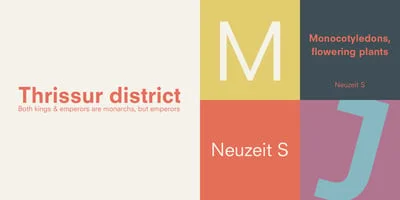
Neuzeit S LT Font
Neuzeit S LT Font delivers a modernist typeface that embodies Bauhaus principles and geometric precision with timeless functionality. However, for commercial use, you must purchase this font. You can download it for free for testing purposes only.
Neuzeit S LT Font excels in architectural design applications including modernist building signage, design museum materials, contemporary art gallery branding, minimalist corporate identities, industrial product packaging, architectural firm presentations, modern furniture catalogs, progressive educational institutions, clean technology interfaces, and sophisticated cultural communications. This geometric typeface brings German design philosophy to contemporary projects.
What makes Neuzeit S LT Font truly exciting is its authentic representation of 1920s modernist typography with pure geometric construction and functional clarity that remains relevant today. The font features precisely engineered letterforms with consistent proportions and mathematical harmony that reflect the Bauhaus movement's commitment to form following function. Its modernist heritage and timeless geometry make it ideal for brands embracing minimalist design principles, architectural integrity, and the enduring appeal of German design methodology that prioritizes clarity over decoration.
The Neuzeit S LT Font family encompasses comprehensive weights including Light, Regular, Medium, Bold, and Book variations with potential Condensed options. These systematic choices provide designers with complete typographic flexibility while maintaining the font's distinctive Bauhaus character and geometric precision across various modernist applications and architectural contexts.
Whether you're developing architectural branding, creating modernist publications, or designing minimalist campaigns, Neuzeit S LT Font provides the geometric authority and modernist sophistication that design-conscious projects require. Its exceptional heritage and functional beauty make it invaluable for designers working with architecture firms, design institutions, and progressive brands requiring authentic Bauhaus typography that celebrates geometric perfection, functional clarity, and the timeless influence of German modernist design thinking in contemporary visual communication.